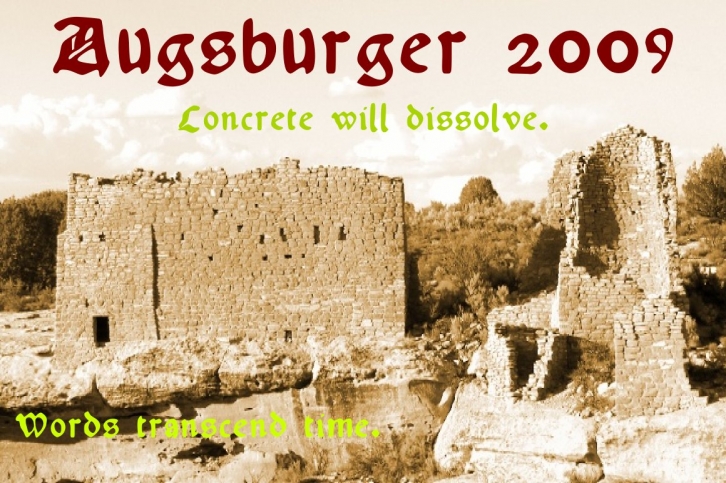
This typeface was inspired strongly by one of Ernhardt Ratdolt’s (1442-1528?) many beautiful typefaces.
Mr. Ratdolt was a printer from the city of Augsburg, who had also worked for several years as a printer in Venice. He made many advances in printing technique and technology, including the decorated title page. Early books have a mysterious rhythm to the appearance of the text, due to small variances in letters caused by casting irregularities and ink transfer from the press. This supposed defect, which is present in this typeface, gives a pleasing effect when compared to the sterile regularity of modern printing technology.